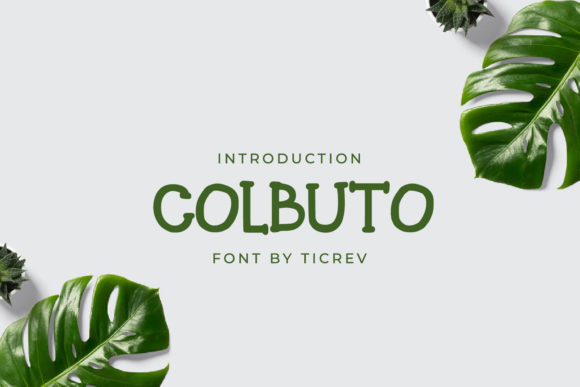
Discover the Charm of Colbuto Font: A Cute and Simple Display Font
Are you a designer or crafter looking for a font that can add a touch of personality to your designs? Look no further than Colbuto Font! This adorable display font is perfect for creating spectacular designs that will capture the attention of your audience. In this article, we’ll dive into the world of Colbuto Font and explore its features, benefits, and uses.
What is Colbuto Font?
Colbuto Font is a cute and simple display font that has taken the design world by storm. Its incredibly versatile style makes it perfect for a wide range of design projects, from branding and advertising to crafting and DIY projects. With its unique and charming aesthetic, Colbuto Font is sure to fall in love with.
Features of Colbuto Font
So, what makes Colbuto Font so special? Here are some of its key features:
- Cute and Simple Design: Colbuto Font has a playful and straightforward design that makes it easy to read and recognize.
- Versatile Style: This font can be used in a variety of design projects, from digital to print, and can be paired with other fonts to create a unique look.
- High-Quality Letters: Colbuto Font features high-quality letters that are crisp and clear, making it perfect for large and small designs.
- Easily Customizable: With Colbuto Font, you can easily adjust the font size, color, and style to fit your design needs.
Benefits of Using Colbuto Font
So, why should you choose Colbuto Font for your design projects? Here are some benefits:
- Adds Personality to Your Designs: Colbuto Font can add a touch of personality and whimsy to your designs, making them stand out from the crowd.
- Perfect for Branding and Advertising: With its cute and simple design, Colbuto Font is perfect for creating memorable brand names, slogans, and taglines.
- Great for Crafters and DIY Projects: Colbuto Font is also great for crafters and DIY enthusiasts who want to add a personal touch to their projects.
- Easy to Read and Recognize: The font’s clear and simple design makes it easy to read and recognize, even at small sizes.
Uses of Colbuto Font
So, how can you use Colbuto Font in your design projects? Here are some ideas:
- Branding and Advertising: Use Colbuto Font to create memorable brand names, slogans, and taglines that will capture the attention of your audience.
- Digital Designs: Use Colbuto Font in digital designs, such as social media graphics, blog posts, and website headers.
- Print Designs: Use Colbuto Font in print designs, such as brochures, flyers, and posters.
- Crafting and DIY Projects: Use Colbuto Font to add a personal touch to your crafting and DIY projects, such as handmade cards, gift tags, and scrapbooking.
In conclusion, Colbuto Font is a cute and simple display font that is perfect for designers and crafters looking to add a touch of personality to their designs. With its incredibly versatile style, high-quality letters, and easily customizable features, Colbuto Font is sure to become a favorite in your design arsenal. So why not give it a try and see how it can elevate your designs to the next level?